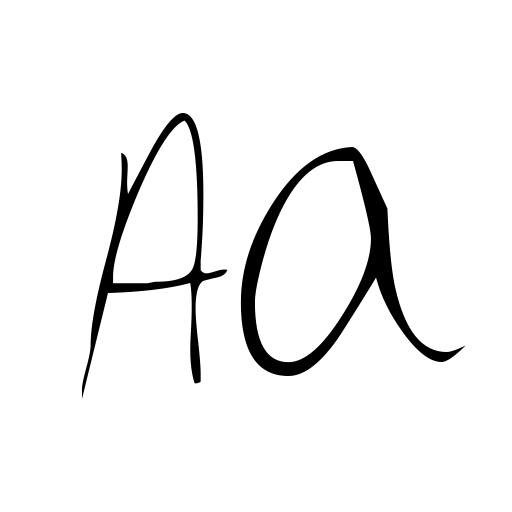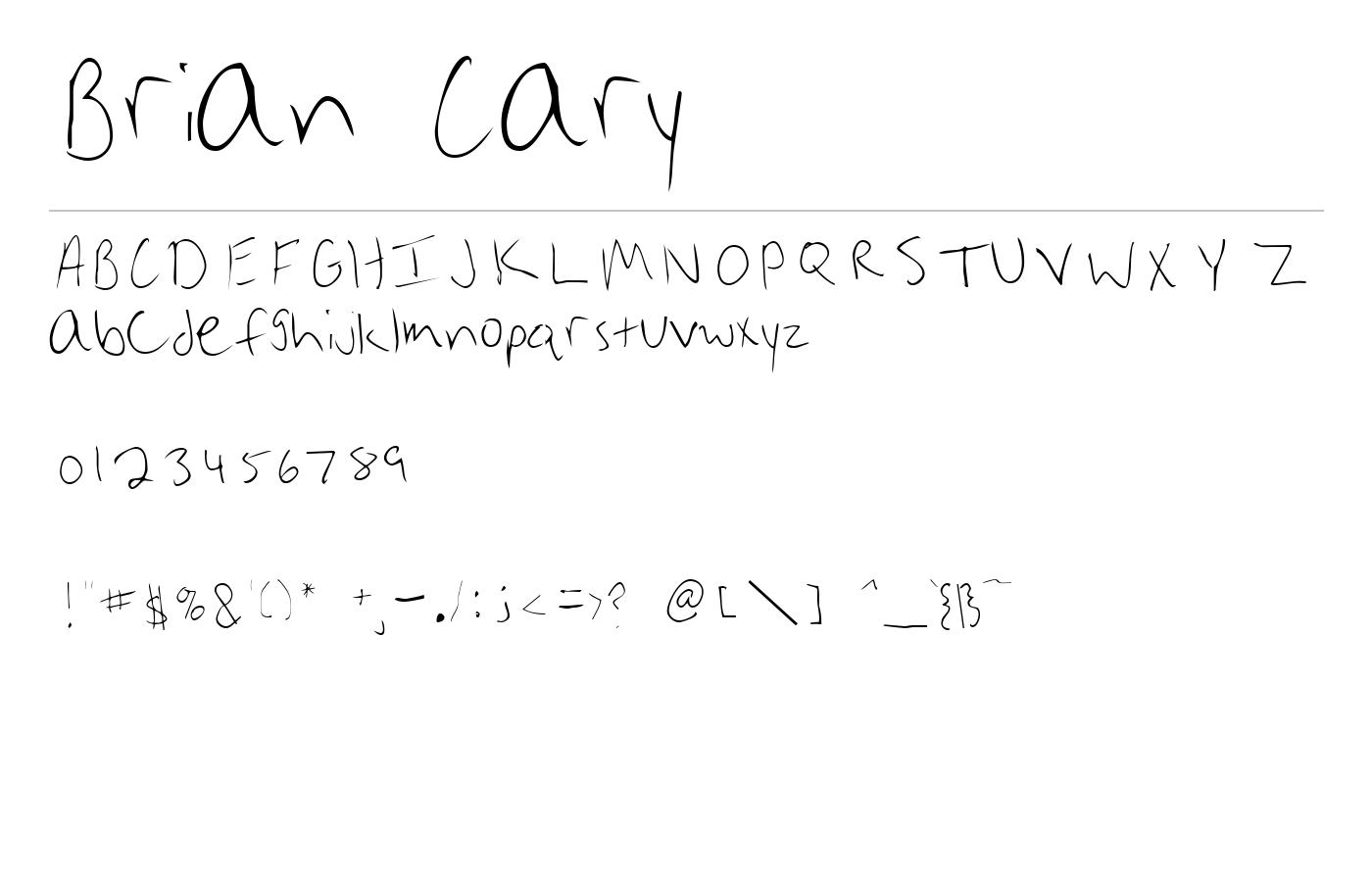
Brian Cary Font is a light, handwritten-style sans serif font with a casual and whimsical feel. Its tall, narrow letterforms, uneven strokes, and playful irregularities make it ideal for informal, creative projects like personal branding, children's books, or artistic designs. This font conveys a friendly, approachable personality that works well in contexts where a personal touch is desired.
Brian Cary Font
About Brian Cary Font